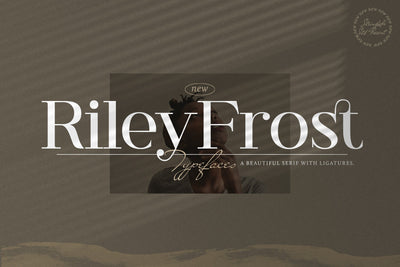
Riley Frost - Casual Serif Font
Introducing Riley Frost - Casual Serif Font
Riley Frost is an authentic and neat serif font. It can easily be matched to an incredibly large set of projects, so add it to your creative ideas and notice how it makes them stand out!